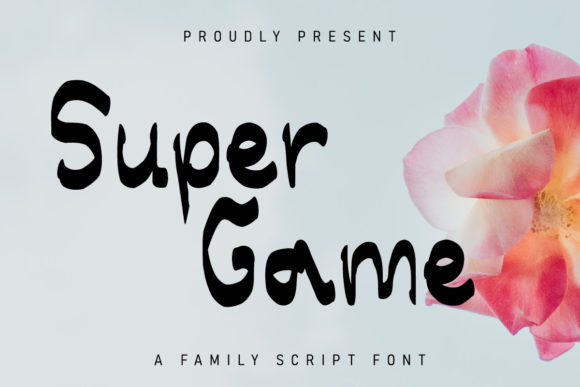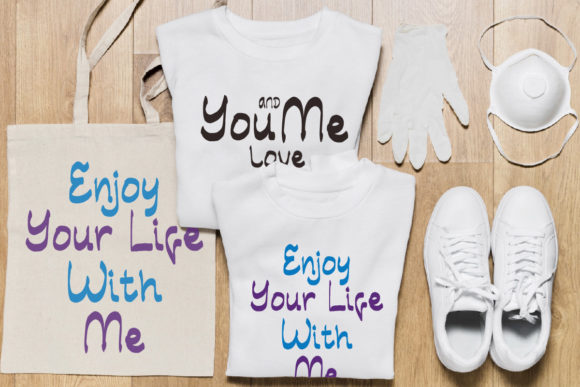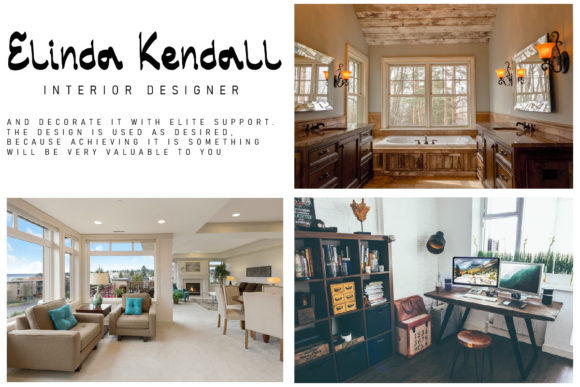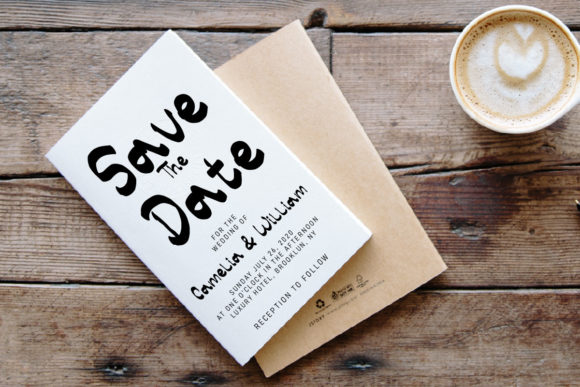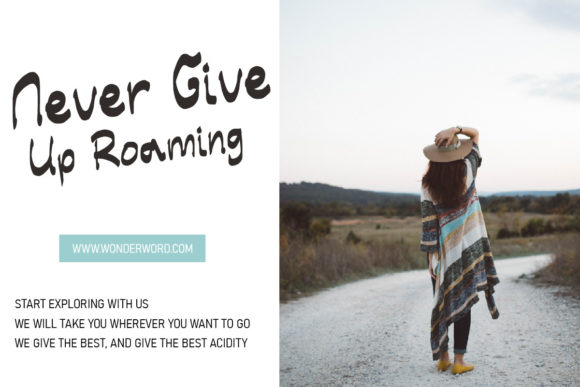
Super Game Font
About Super Game Font
Super Game is a cute, simple and natural handwritten font. Fall in love with its incredibly versatile style and use it to create gorgeous wedding invitations, beautiful stationary art, eye-catching social media posts, and much more!